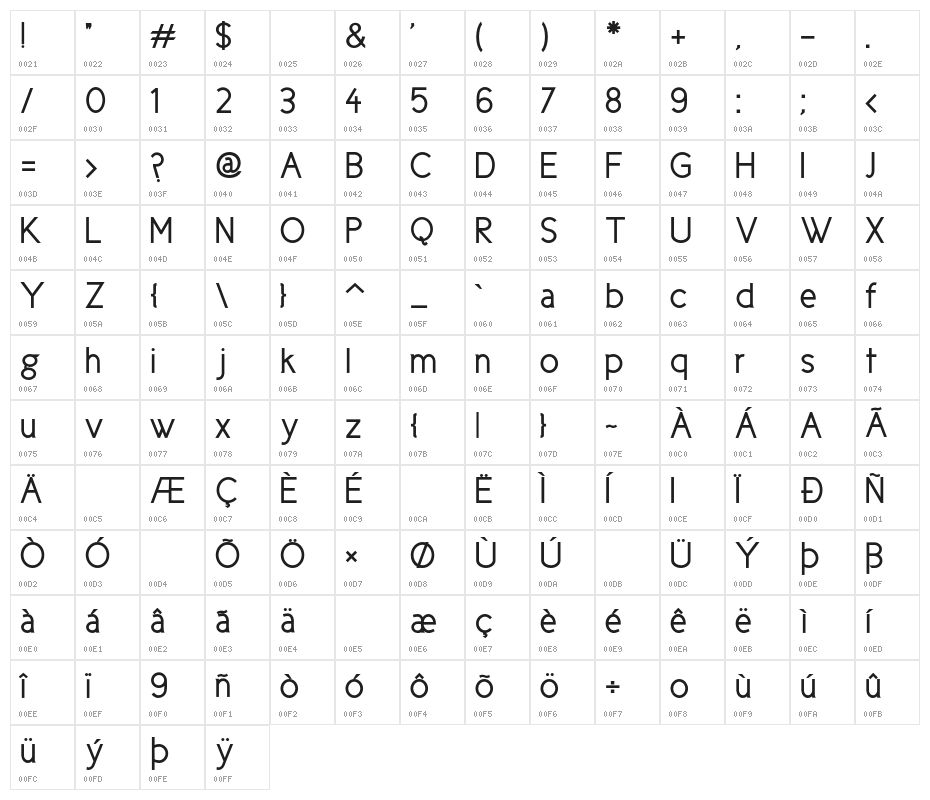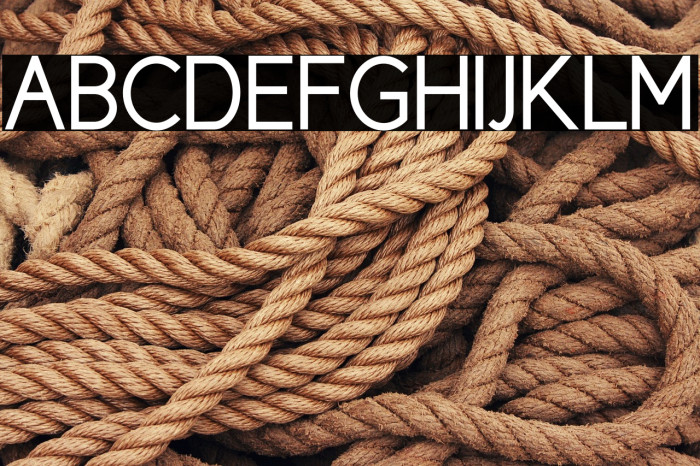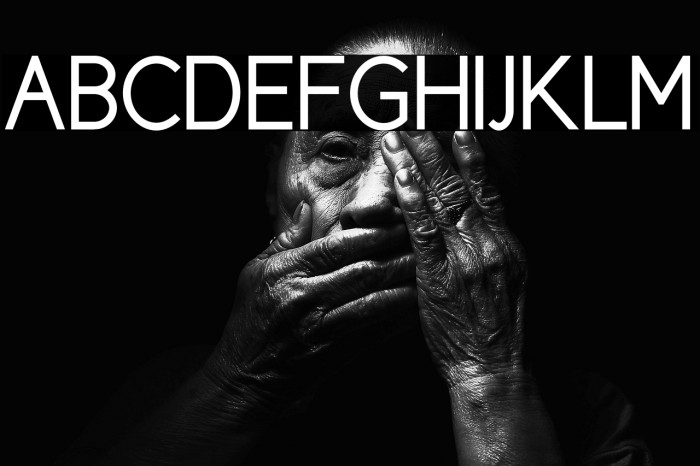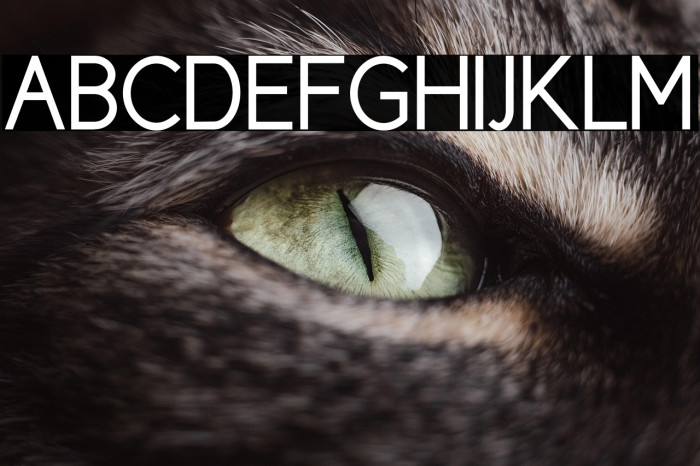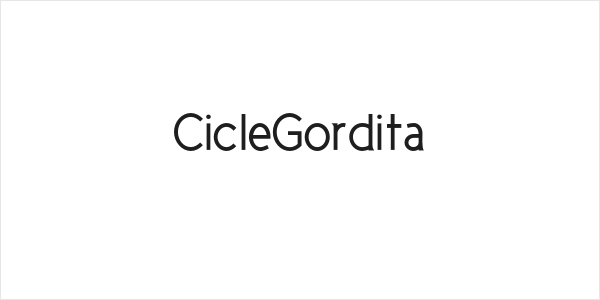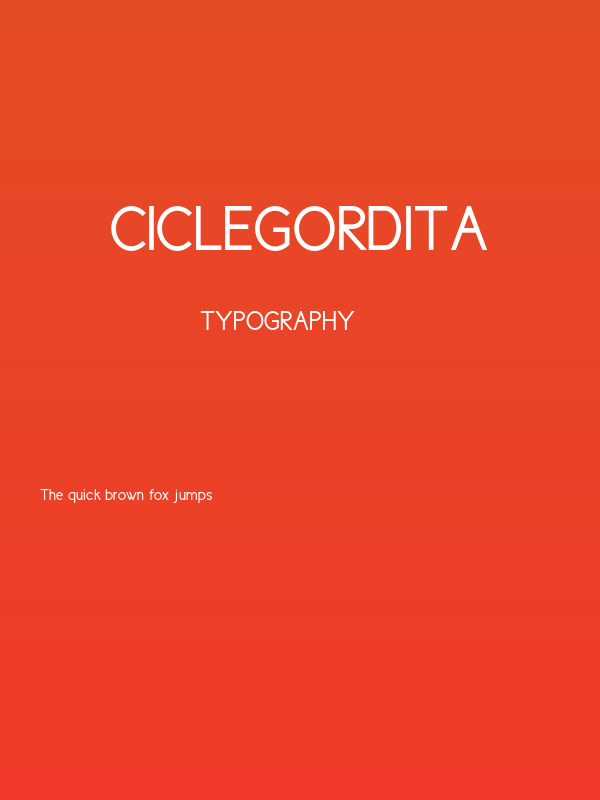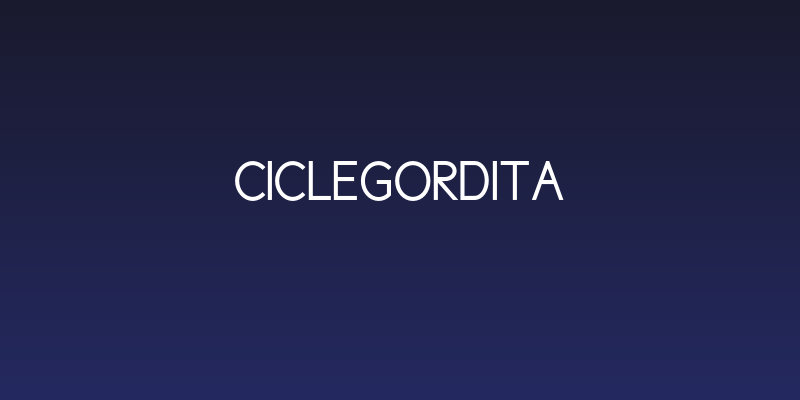
CicleGordita Font
CicleGordita Description
This font features a clean and modern sans-serif design with a geometric structure. The characters are well-balanced, offering a harmonious appearance that is both professional and approachable. The uppercase letters are bold and assertive, while the lowercase letters maintain a friendly and inviting look. The numerals are clear and easy to read, making them suitable for various applications. Special characters are distinct and integrate seamlessly with the rest of the typeface, ensuring versatility in design projects.
| Proposed Projects | Ideal for branding, advertising, web design, and editorial projects where a modern and approachable aesthetic is desired. |